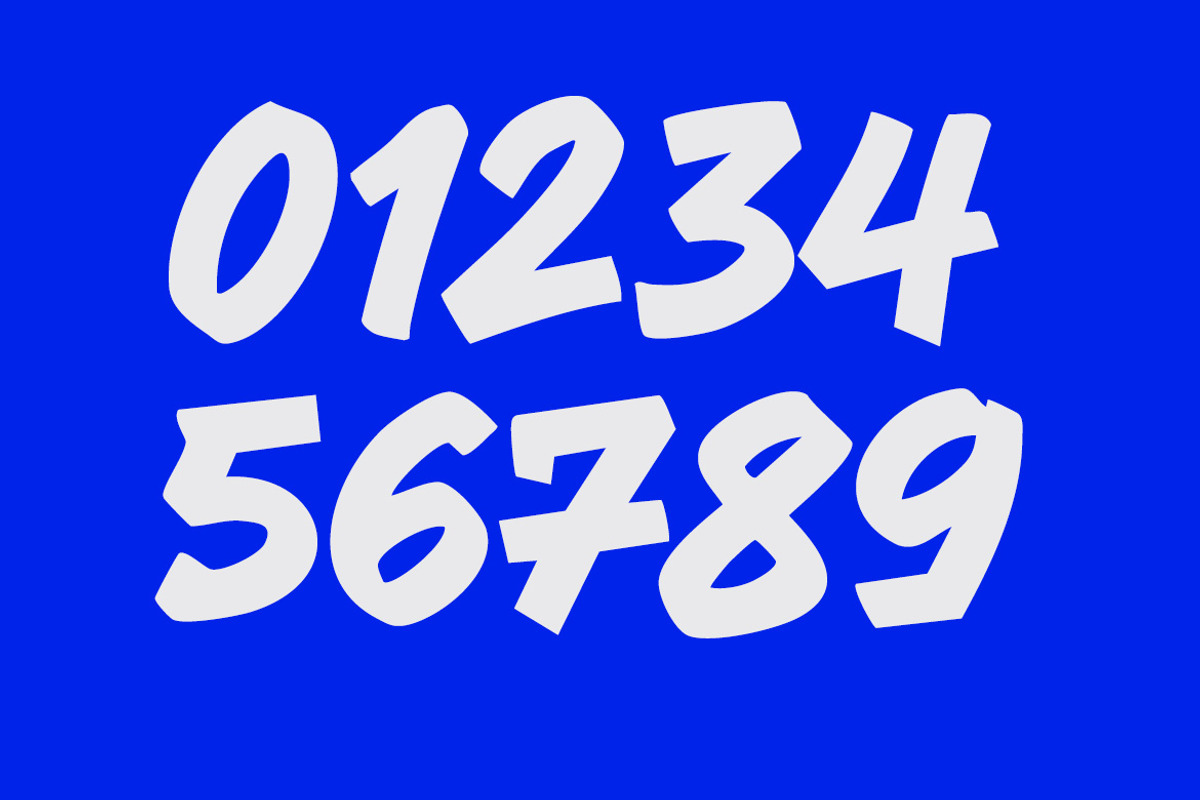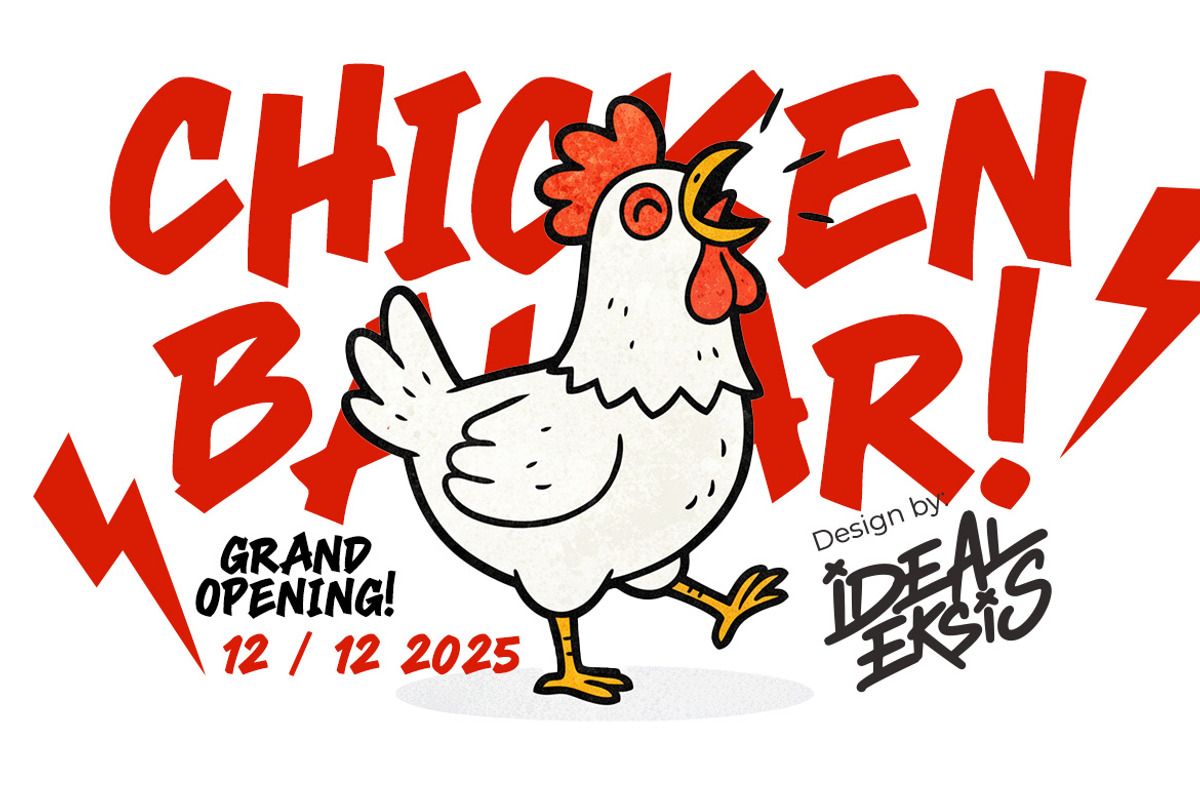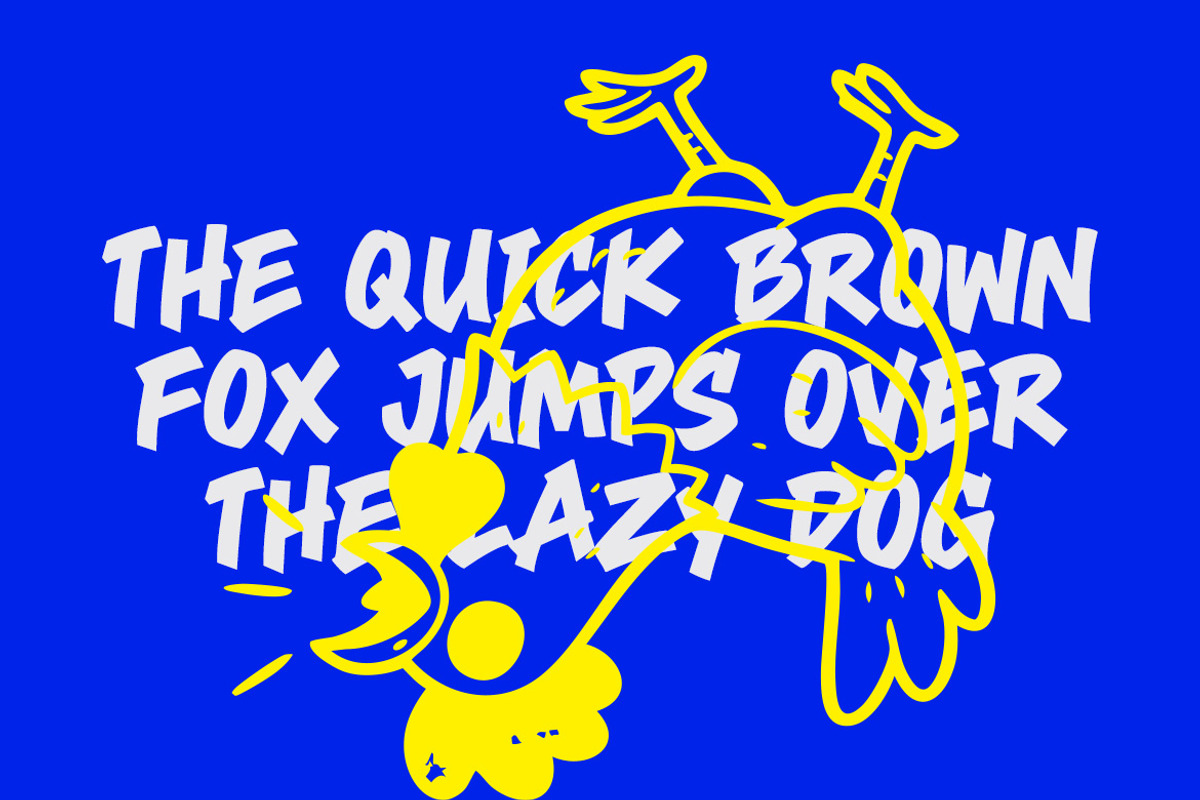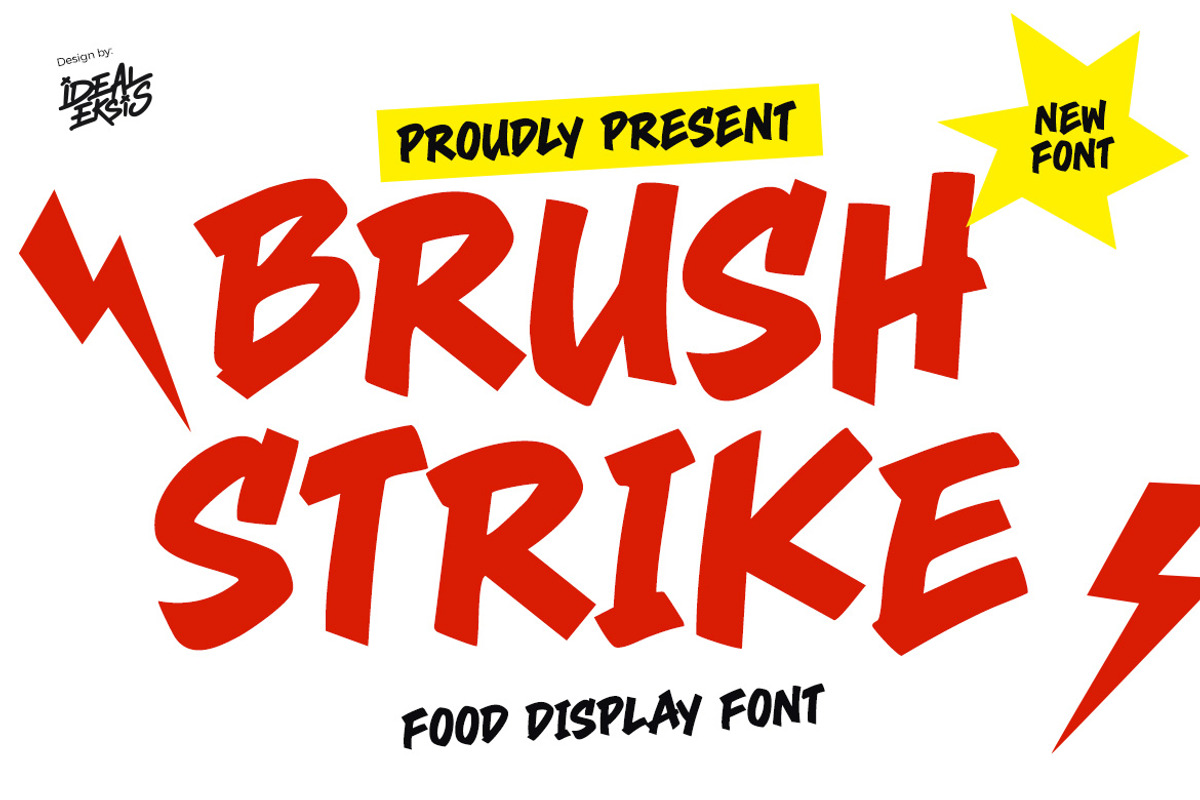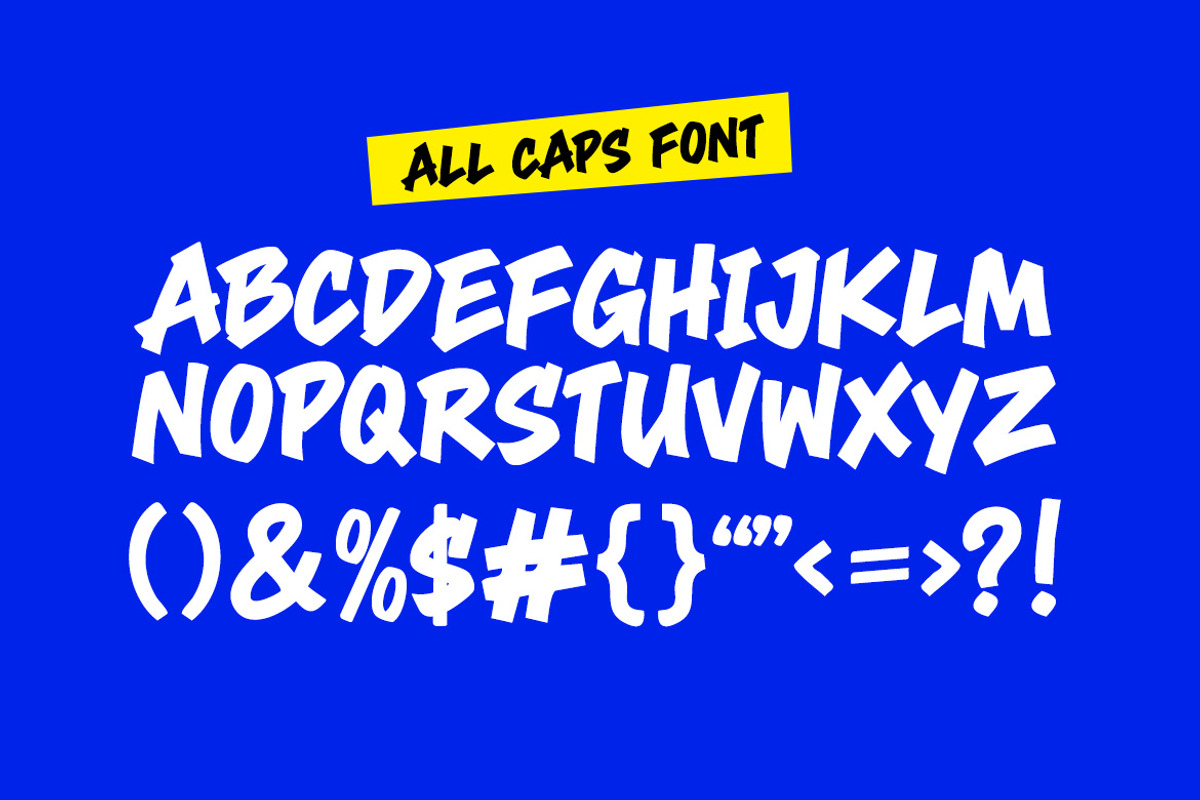
Brush Strike - Food Font
This font features bold, irregular strokes that evoke a powerful, hand-painted aesthetic. Each uppercase letter exhibits varying widths and angles, with rough, textured edges that simulate a spontaneous brush or marker application.
Uppercase (All Caps)
Numerals
Perfect for
Bakery and café branding
Food and beverage logos
Restaurant menus and signage
Coffee shop and donut shop designs
Food packaging and labels
Social media food promotions
Kitchen-themed posters and prints
Culinary blogs and recipe graphics